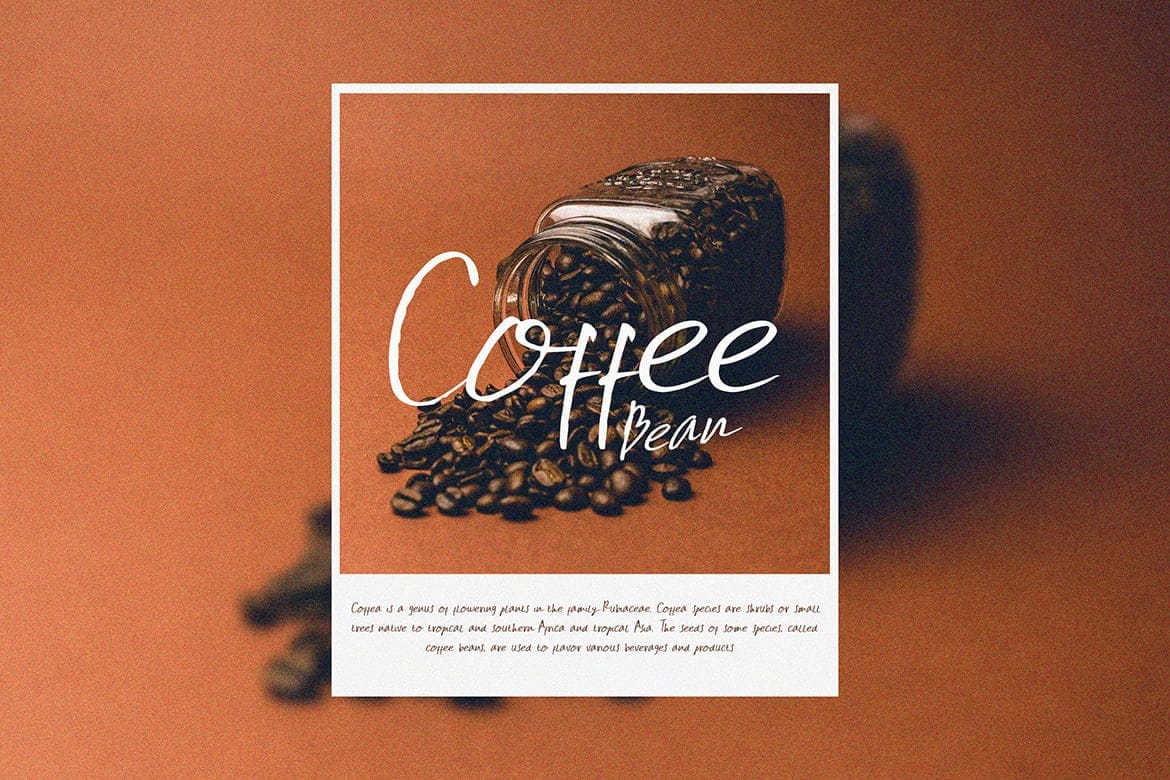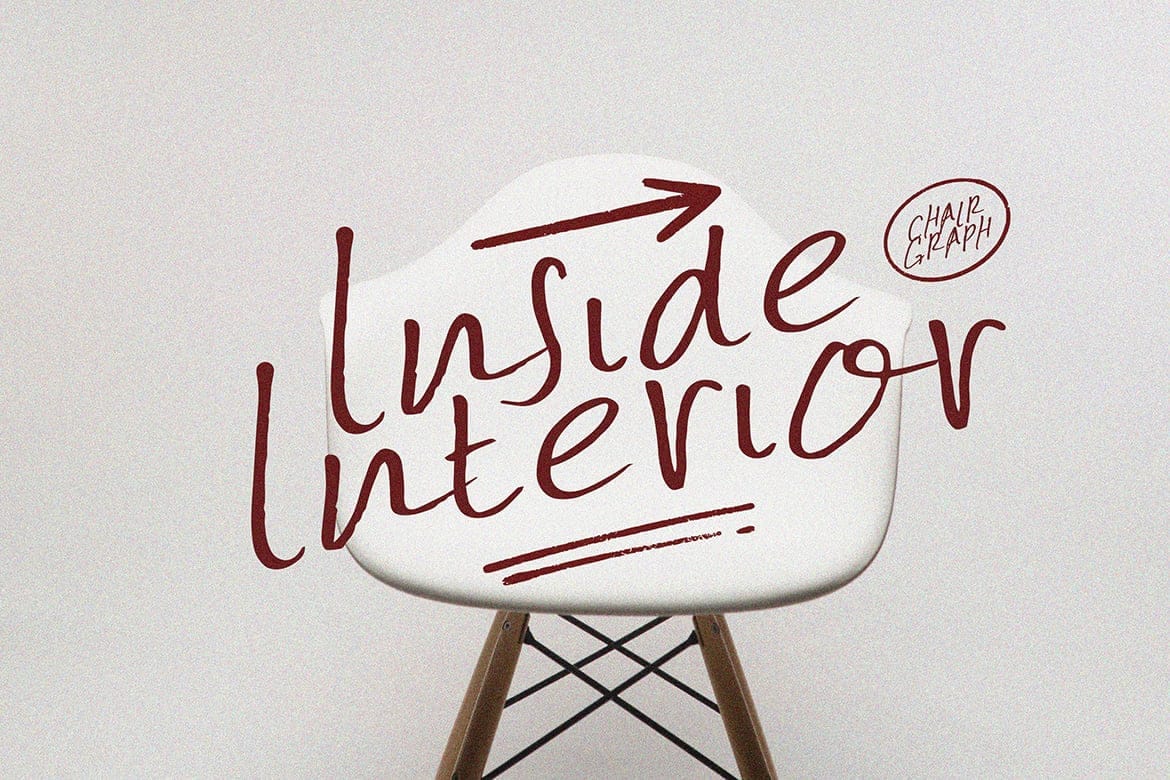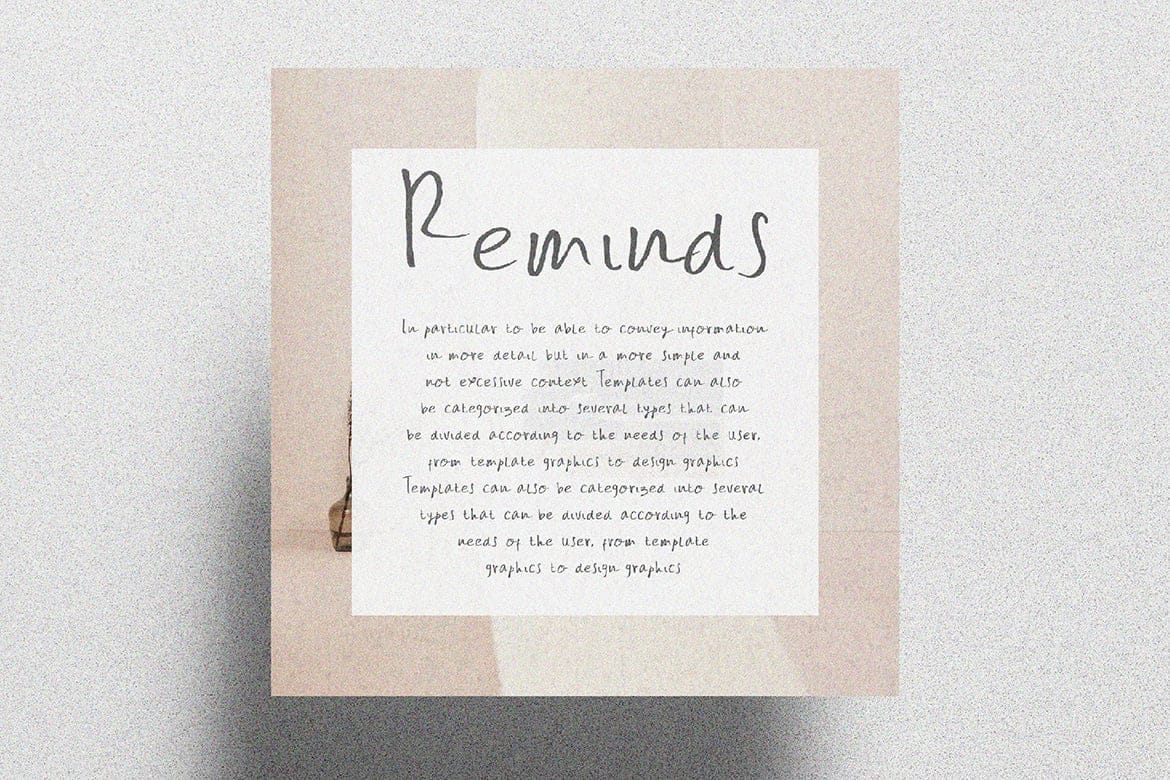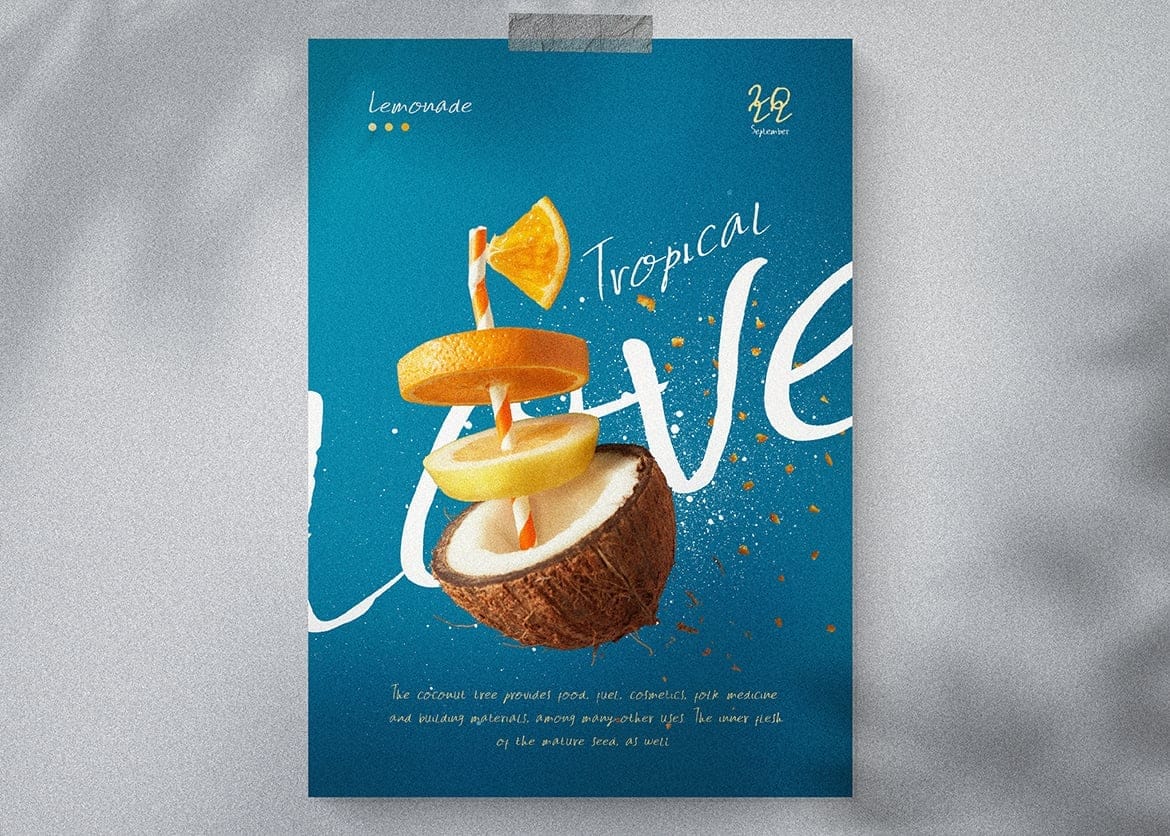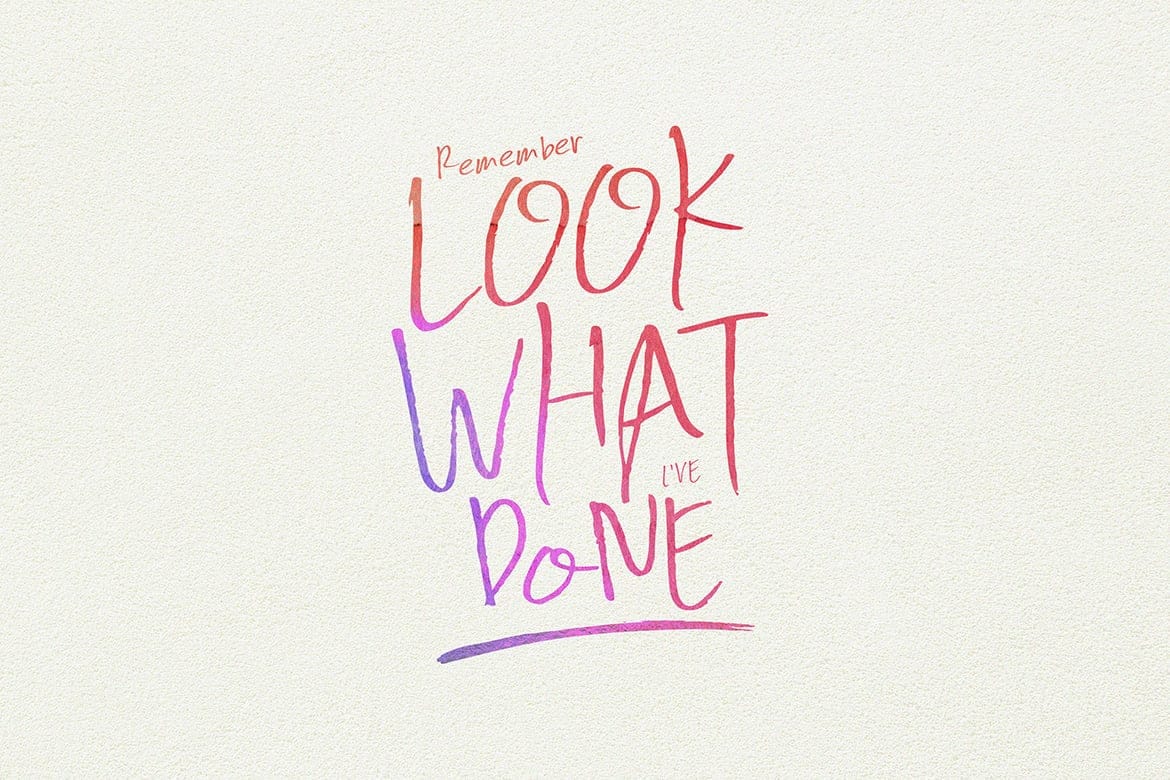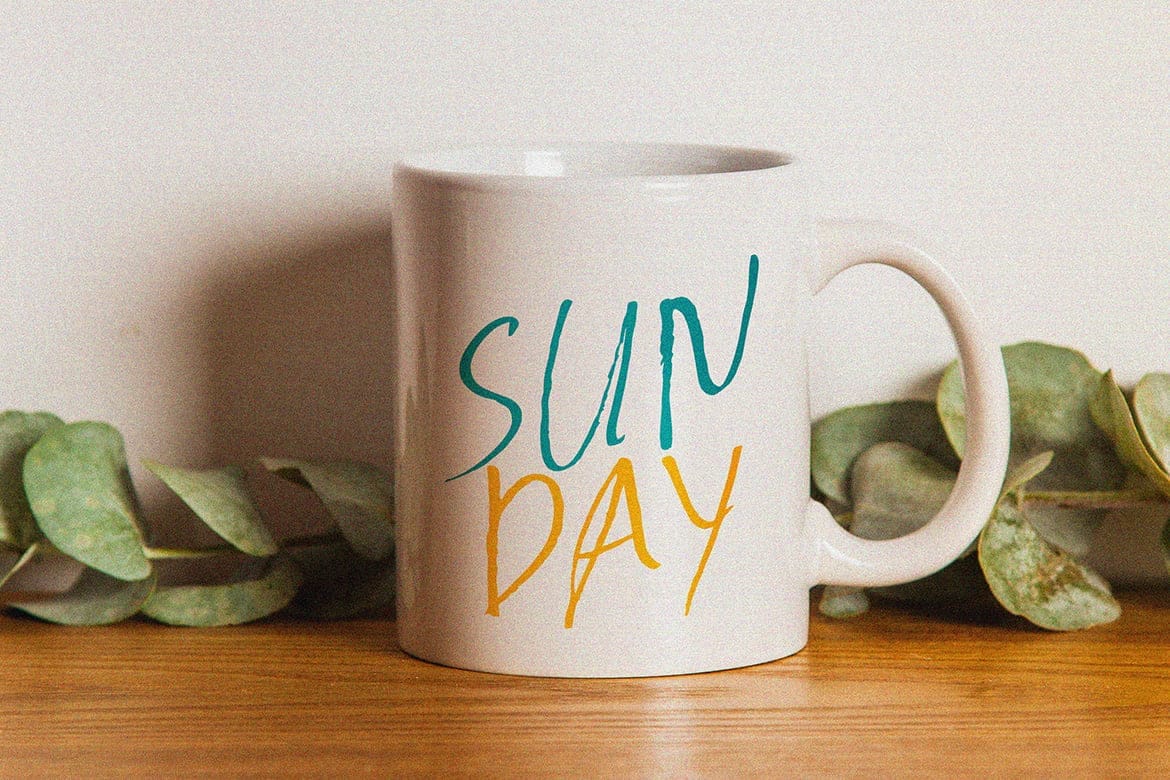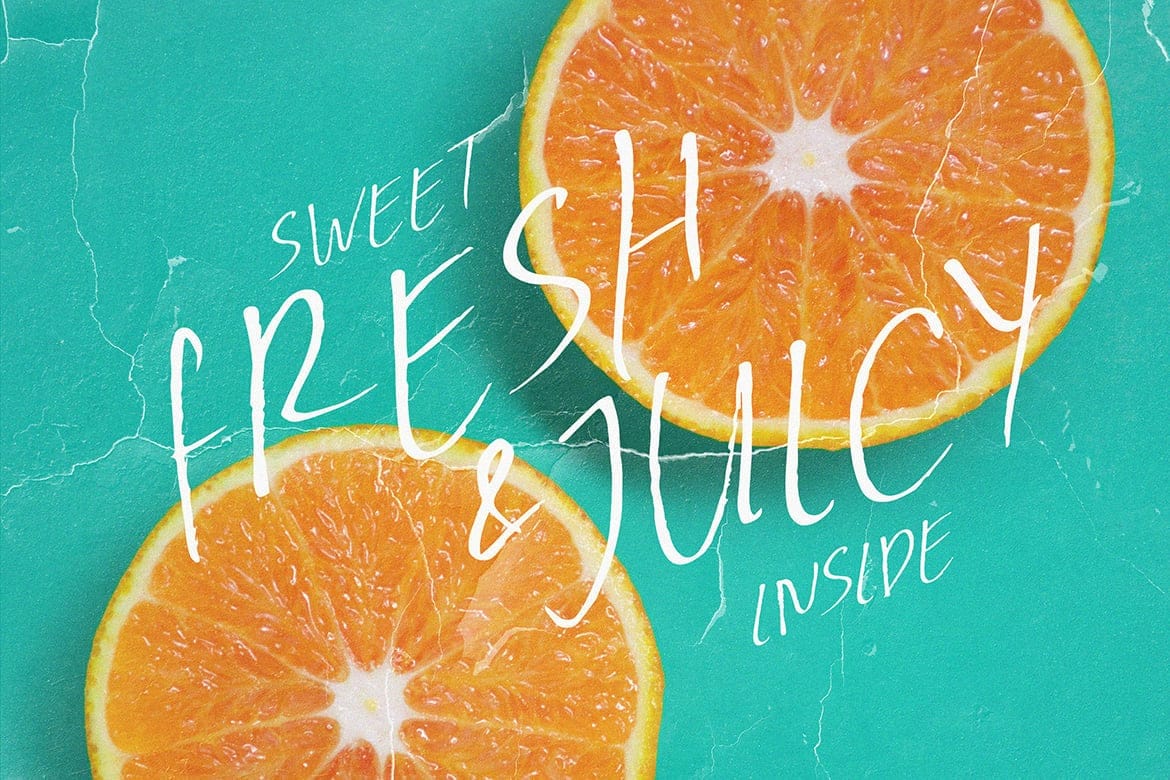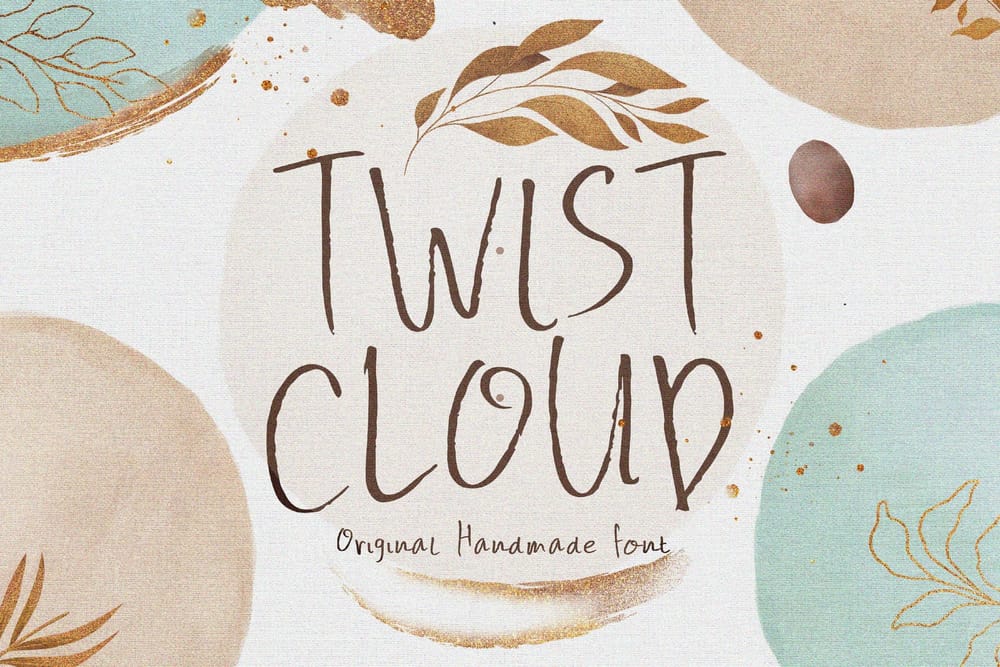
Twist Cloud Font
Handwriting is the most expressive form of writing. Each letter has its own personality, which is what makes it so much fun to use in your branding.
This Twist Cloud Font is unique handwriting font. Created with original handmade sketch. This font suit for personal & commercial project such a poster, letter, headline, web blog, social media post, stories, banner, Packaging, T-shirt design, pillow, wedding invitation, or even for logo design.